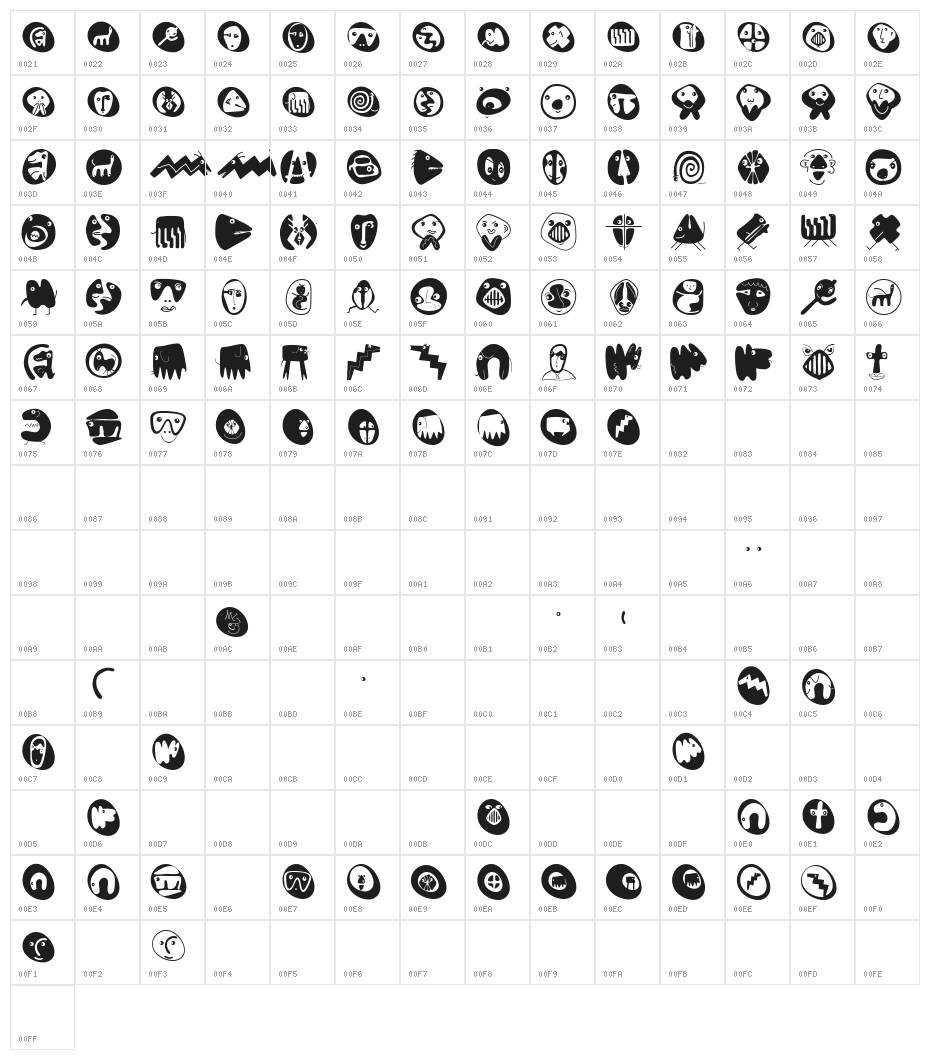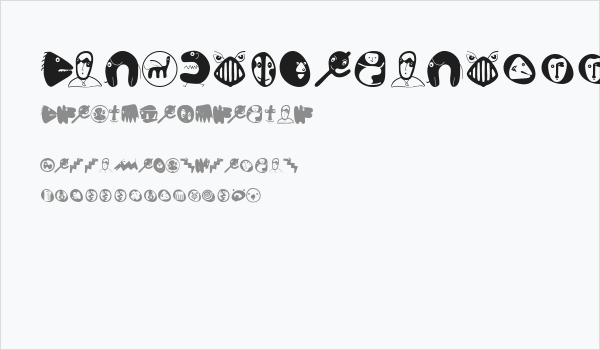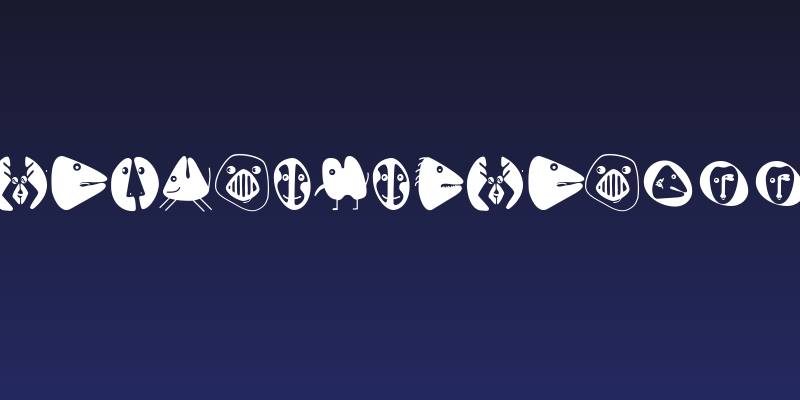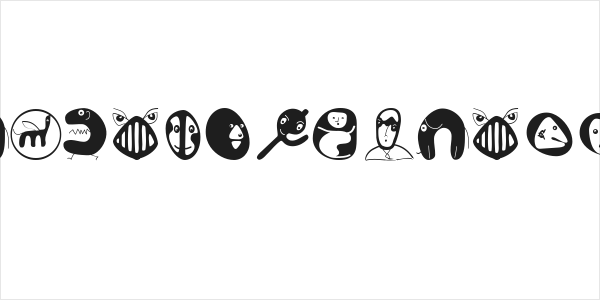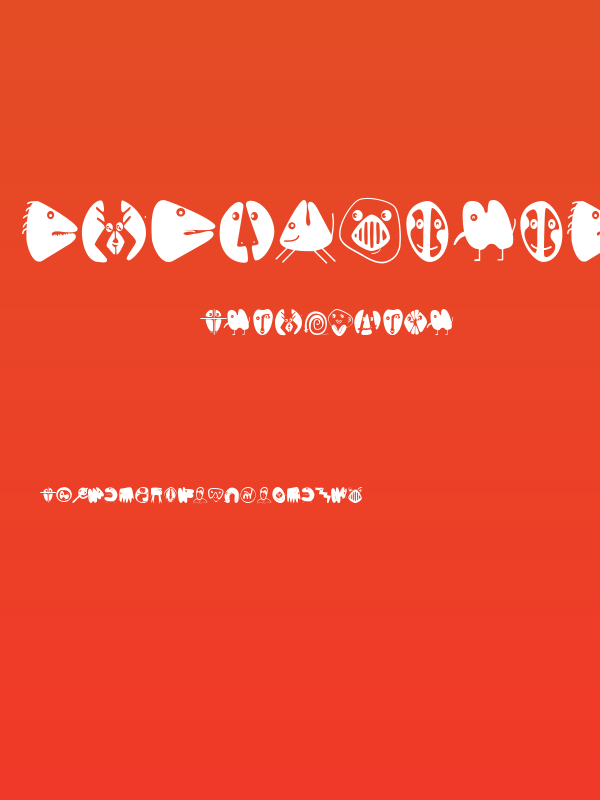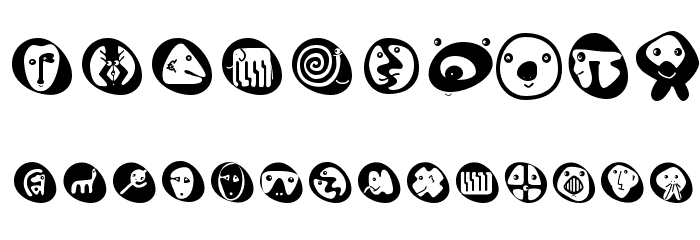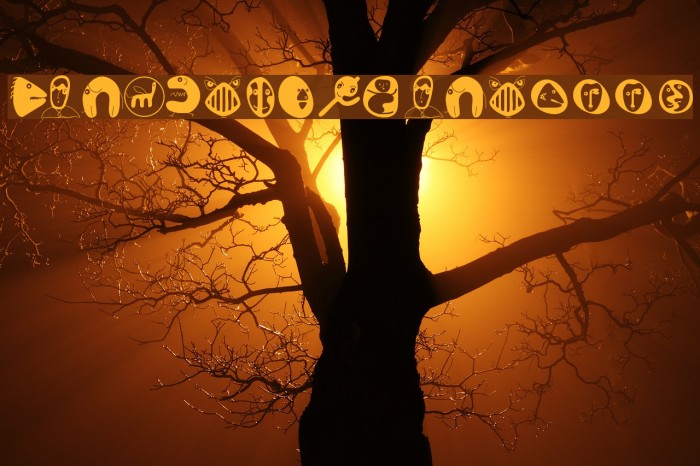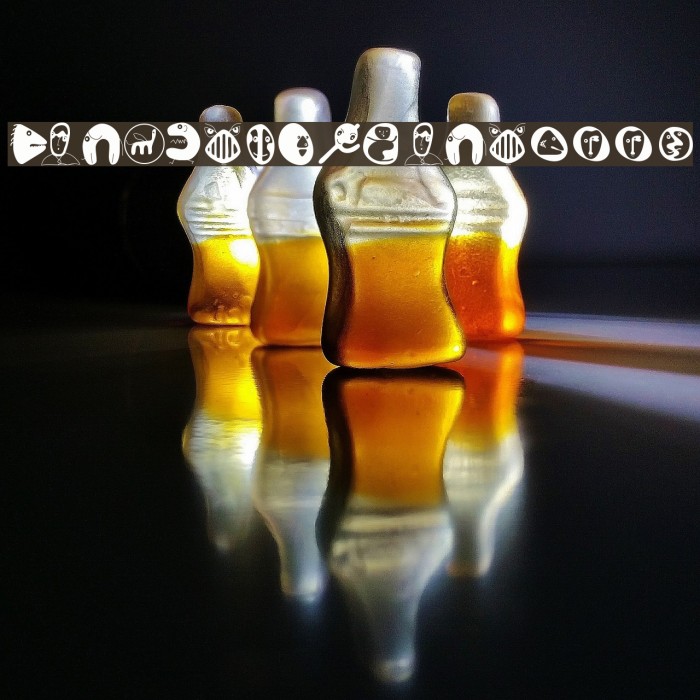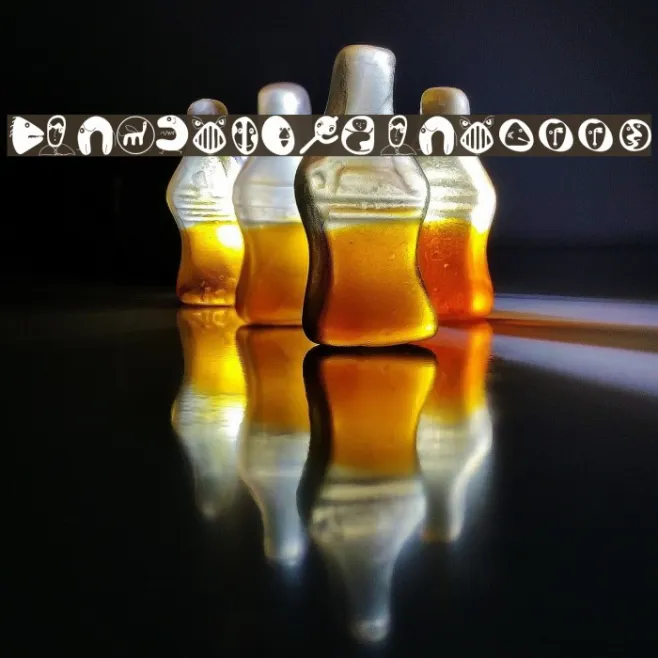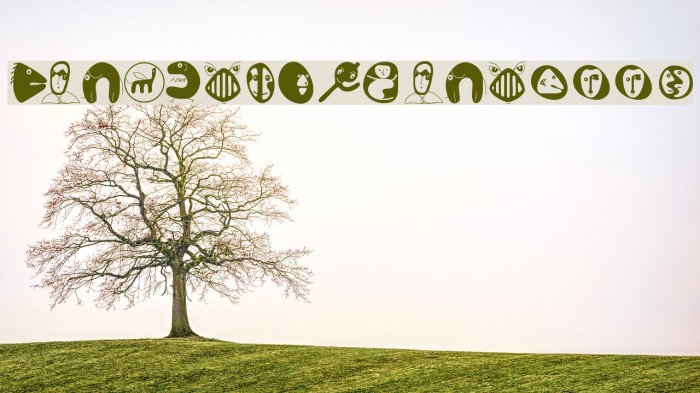
ConfusEyecons2005 Font
| Caso d'uso | Logos, Artistic projects, Creative branding |
| Progetti proposti | Ideal for creative projects such as children's books, playful branding, artistic posters, or any design that benefits from a whimsical and imaginative touch. |